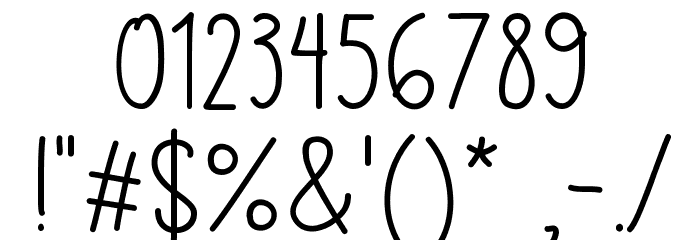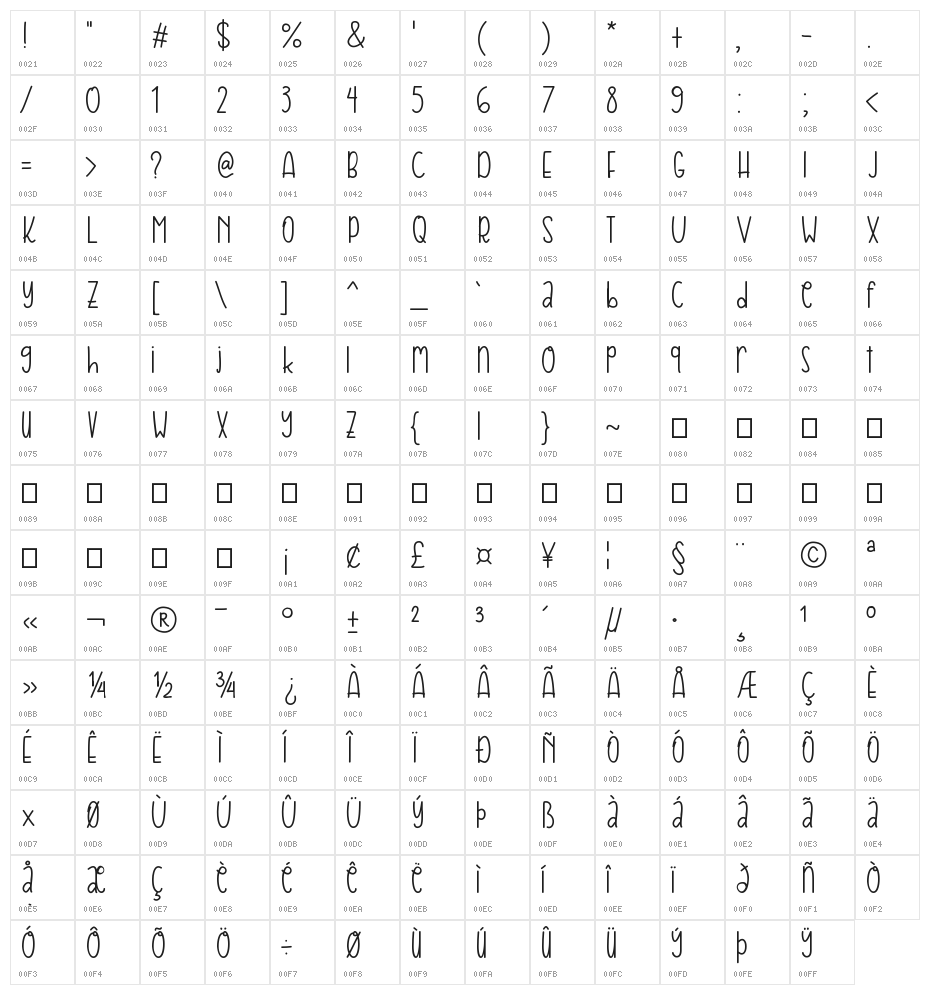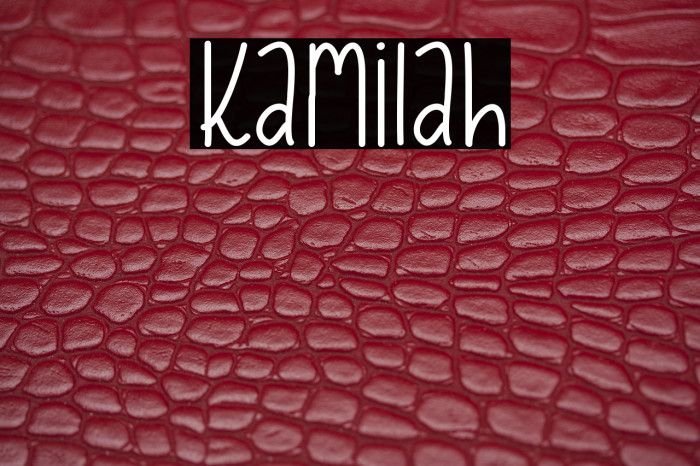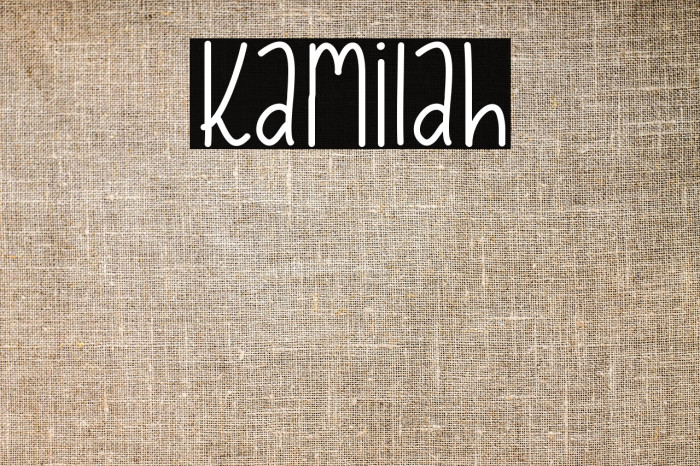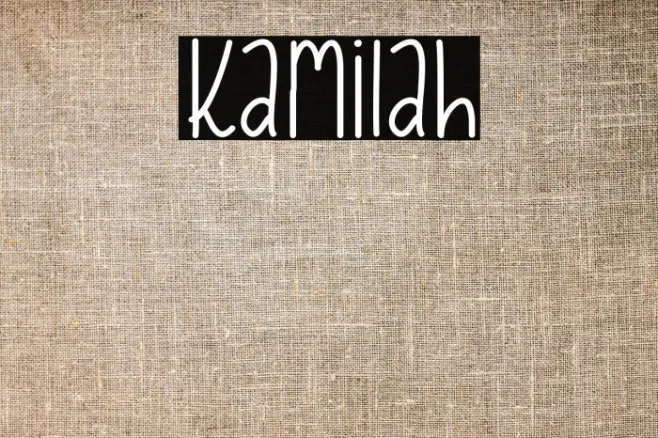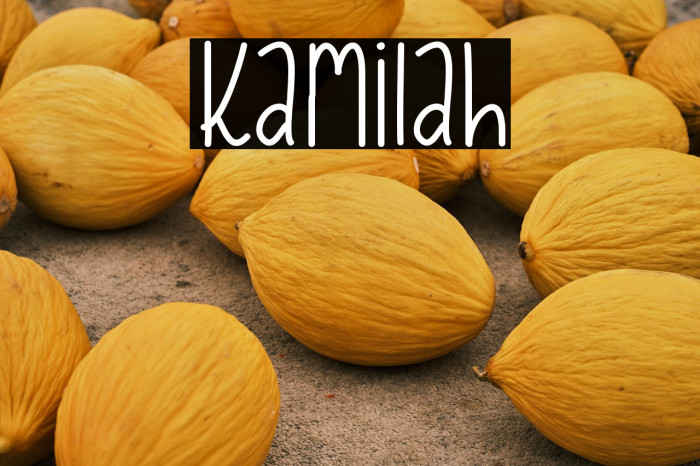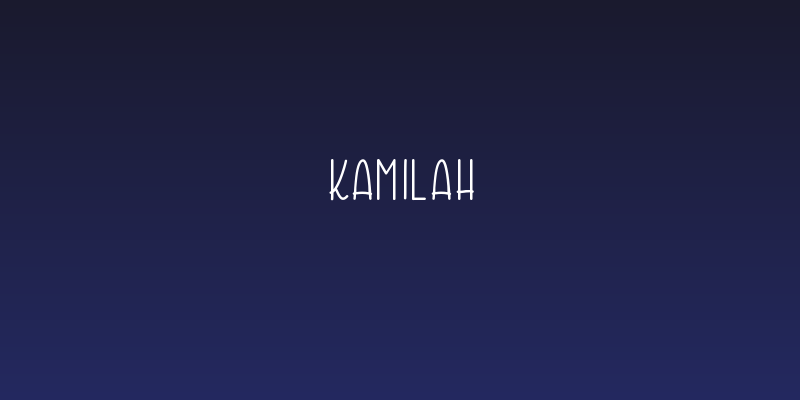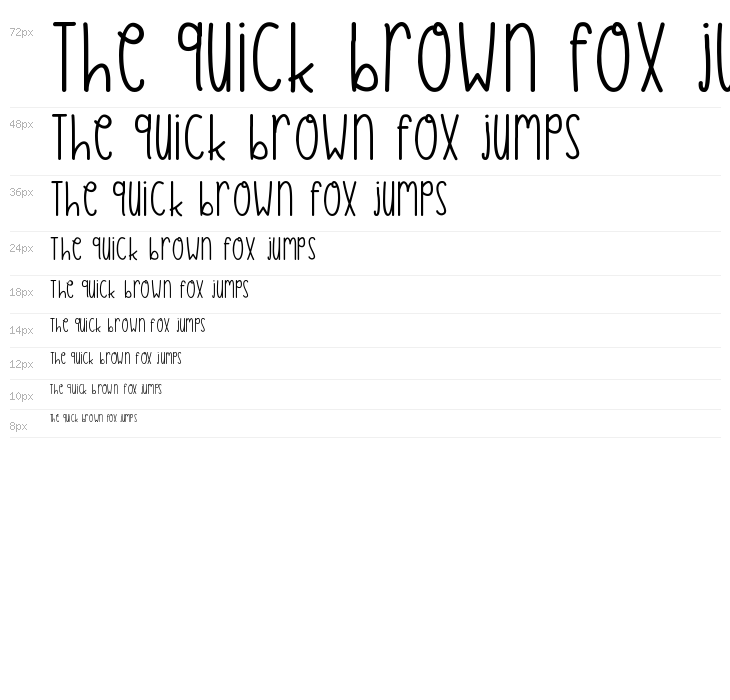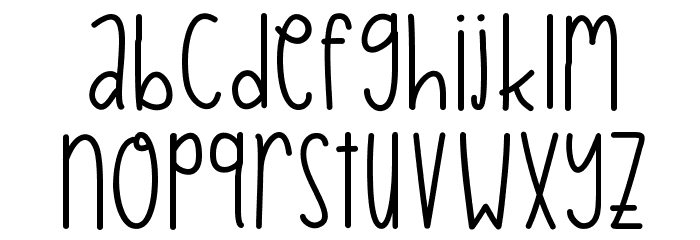
Kamilah Font
Kamilah Description
This font features a playful and whimsical style with tall, narrow letters that have a hand-drawn appearance. The strokes are consistent in width, giving it a monolinear look. The uppercase letters are slightly taller than the lowercase, and the overall design has a casual, friendly feel. The numbers and special characters maintain the same playful aesthetic, making it suitable for informal and creative projects. The font's simplicity and charm make it versatile for various design needs.
Overall StylePlayful
Use CaseHeadlines, Logos, Informal Text
Proposed ProjectsIdeal for children's books, greeting cards, playful branding, and creative posters.